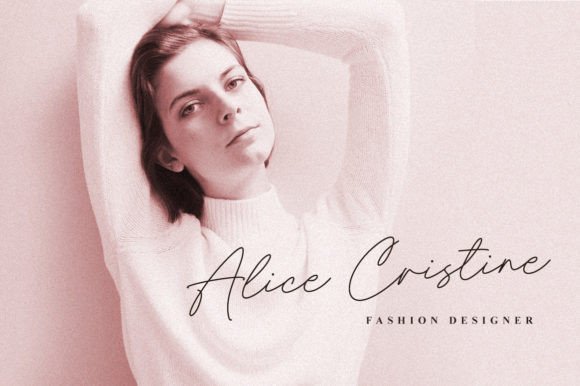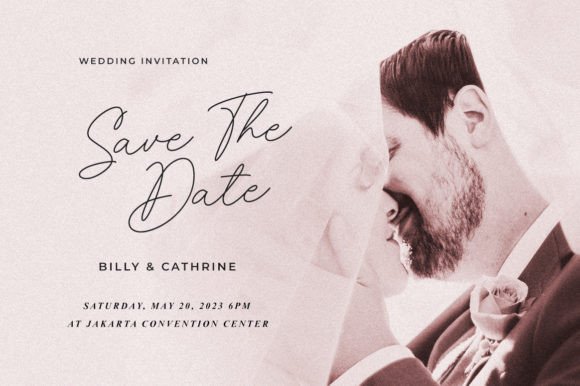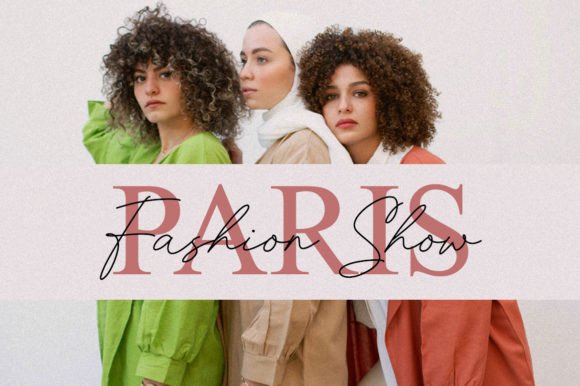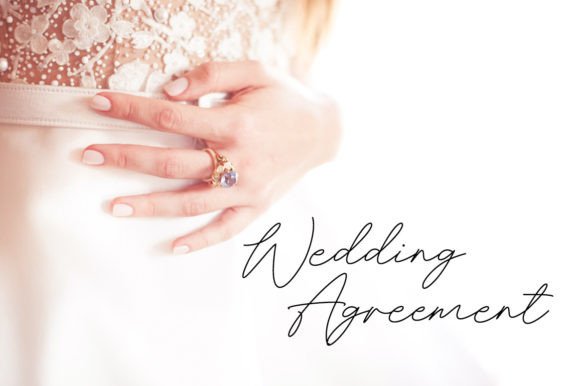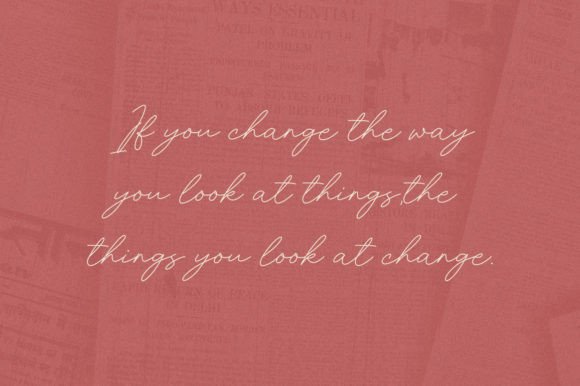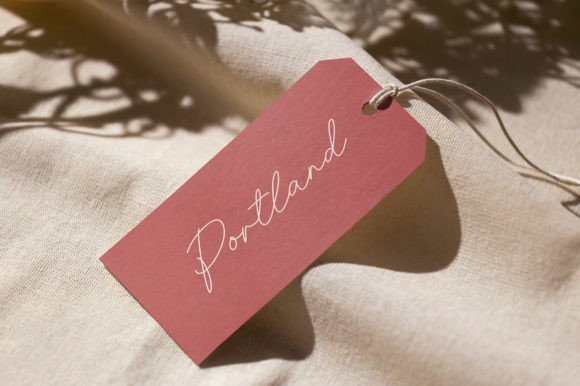
Introduction to Richford Font
Richford is a signature script font, described by an elegant and modern touch, perfect for your favorite projects.
Richford is a signature script font, described by an elegant and modern touch, perfect for your favorite projects. It looks stunning on wedding invitations, thank you cards, quotes, greeting cards, lo